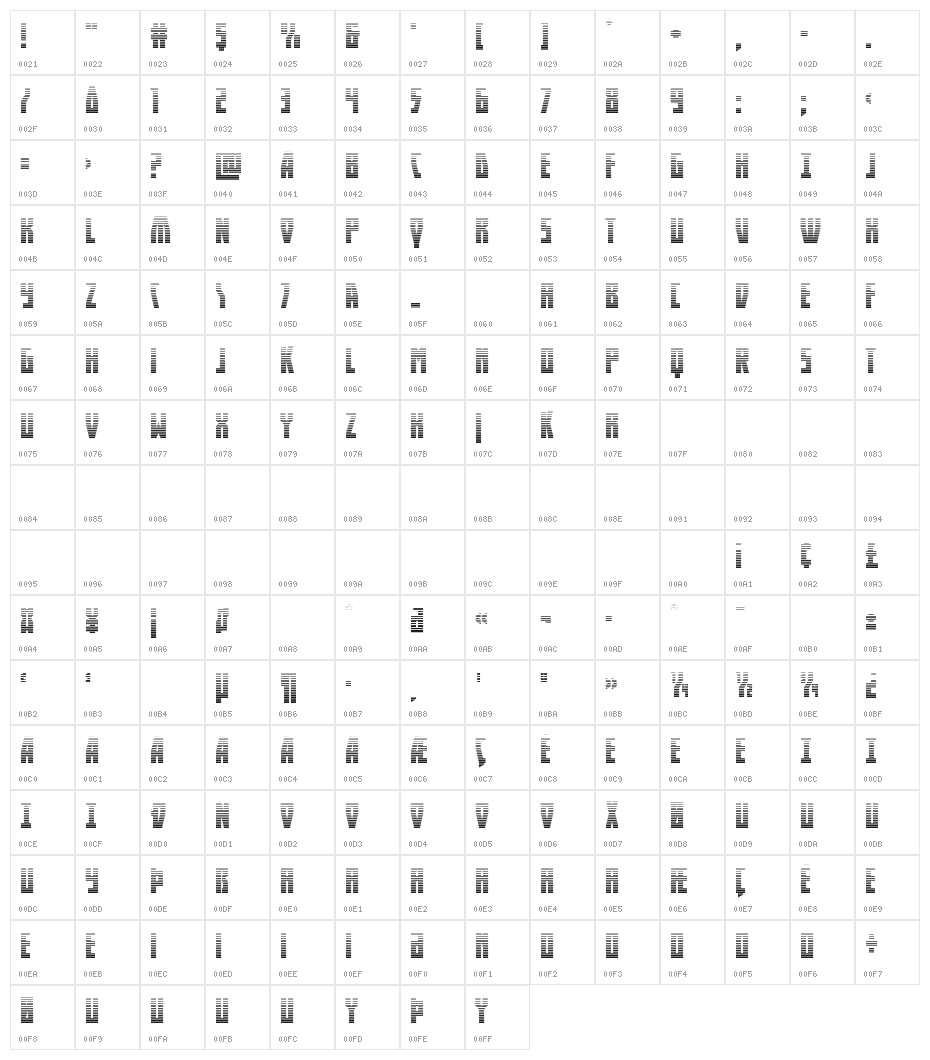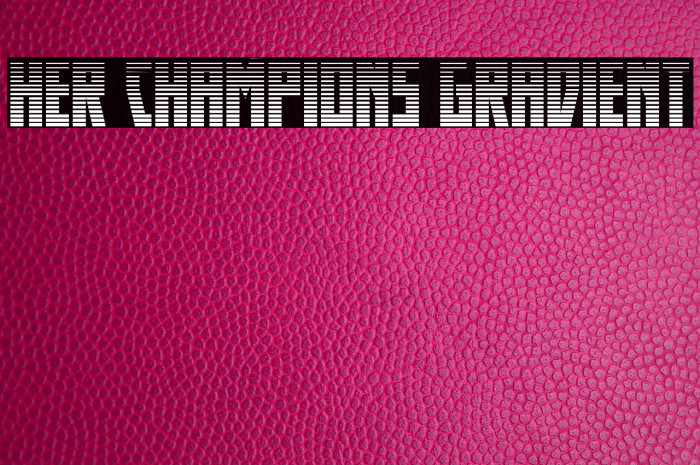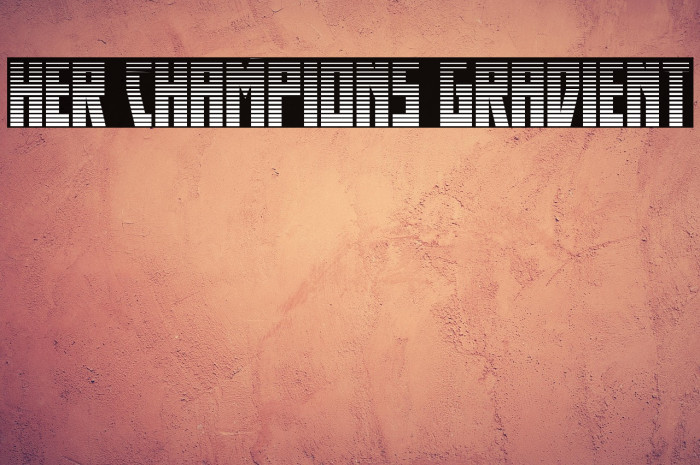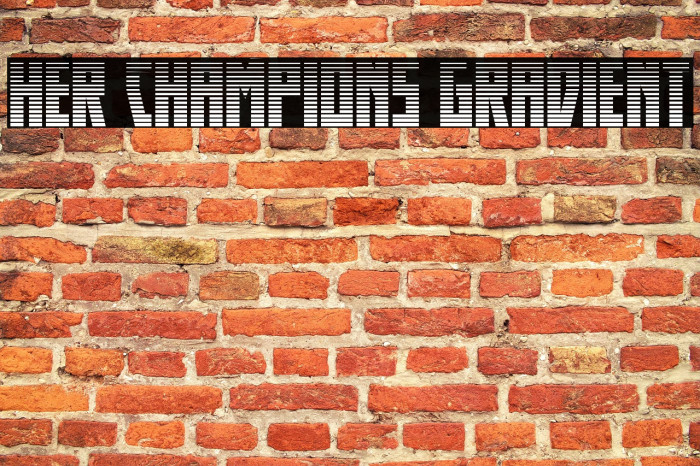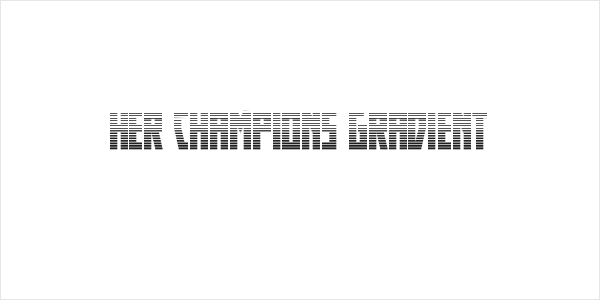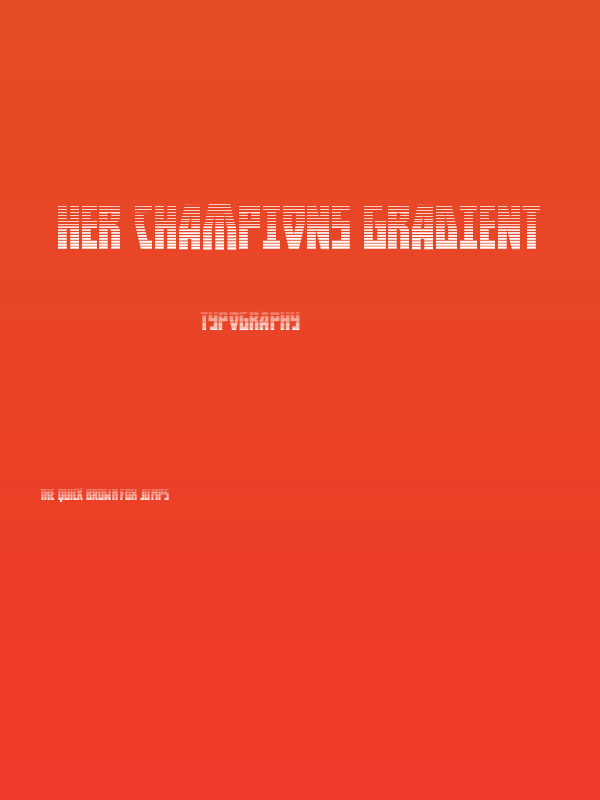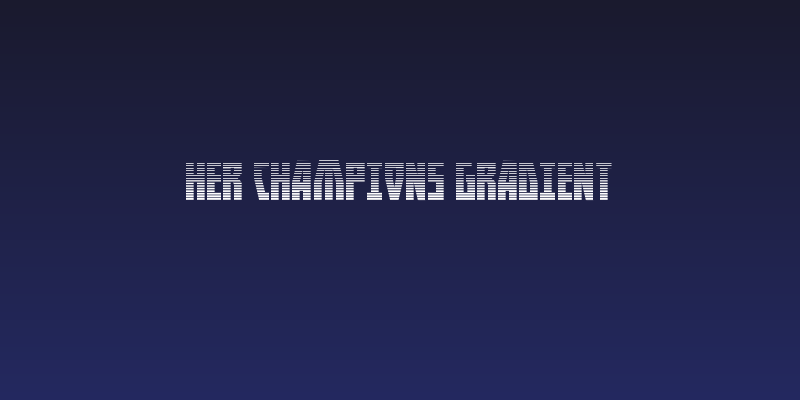
Her Champions Gradient Font
Her Champions Gradient Description
This font features a bold, geometric design with a distinctive striped pattern that creates a gradient effect across each character. The uppercase and lowercase letters are constructed with horizontal lines that vary in thickness, giving a sense of movement and depth. The numerals and special characters follow the same design principle, ensuring consistency throughout the typeface. Its unique style makes it stand out, offering a modern and dynamic appearance that is both eye-catching and versatile.
| Proposed Projects | Ideal for modern branding, sports team logos, event posters, and digital media projects that require a striking visual impact. |